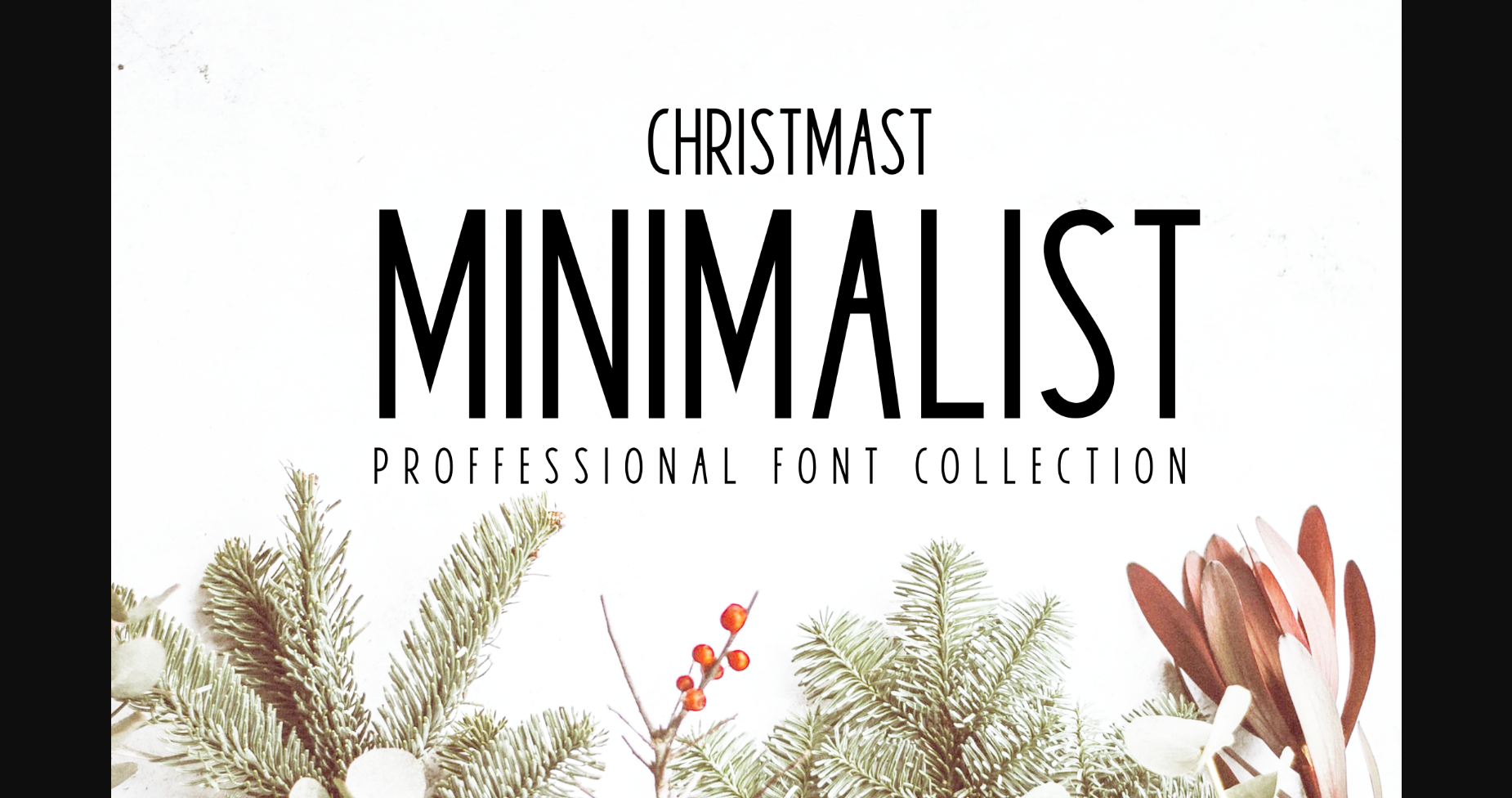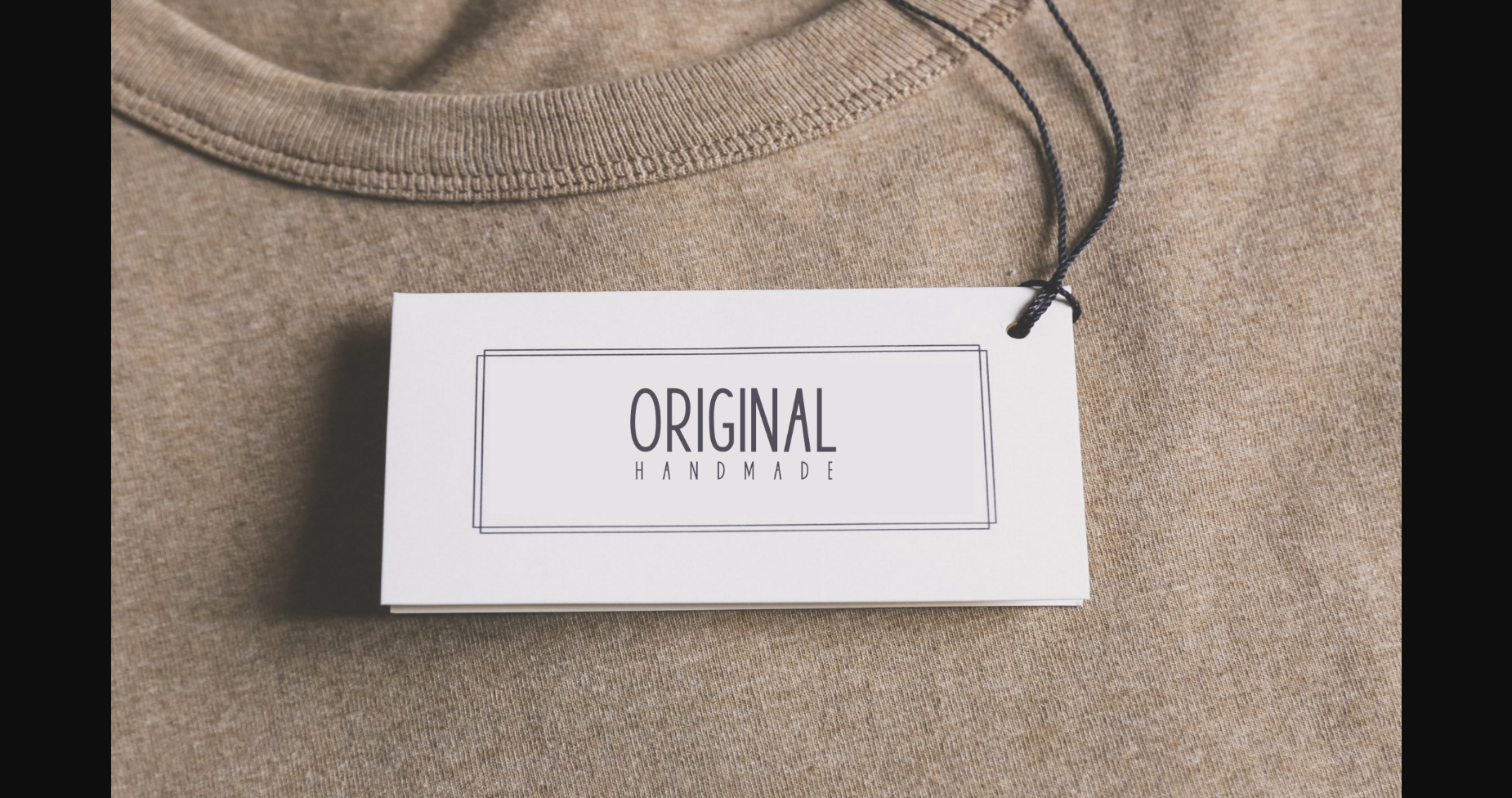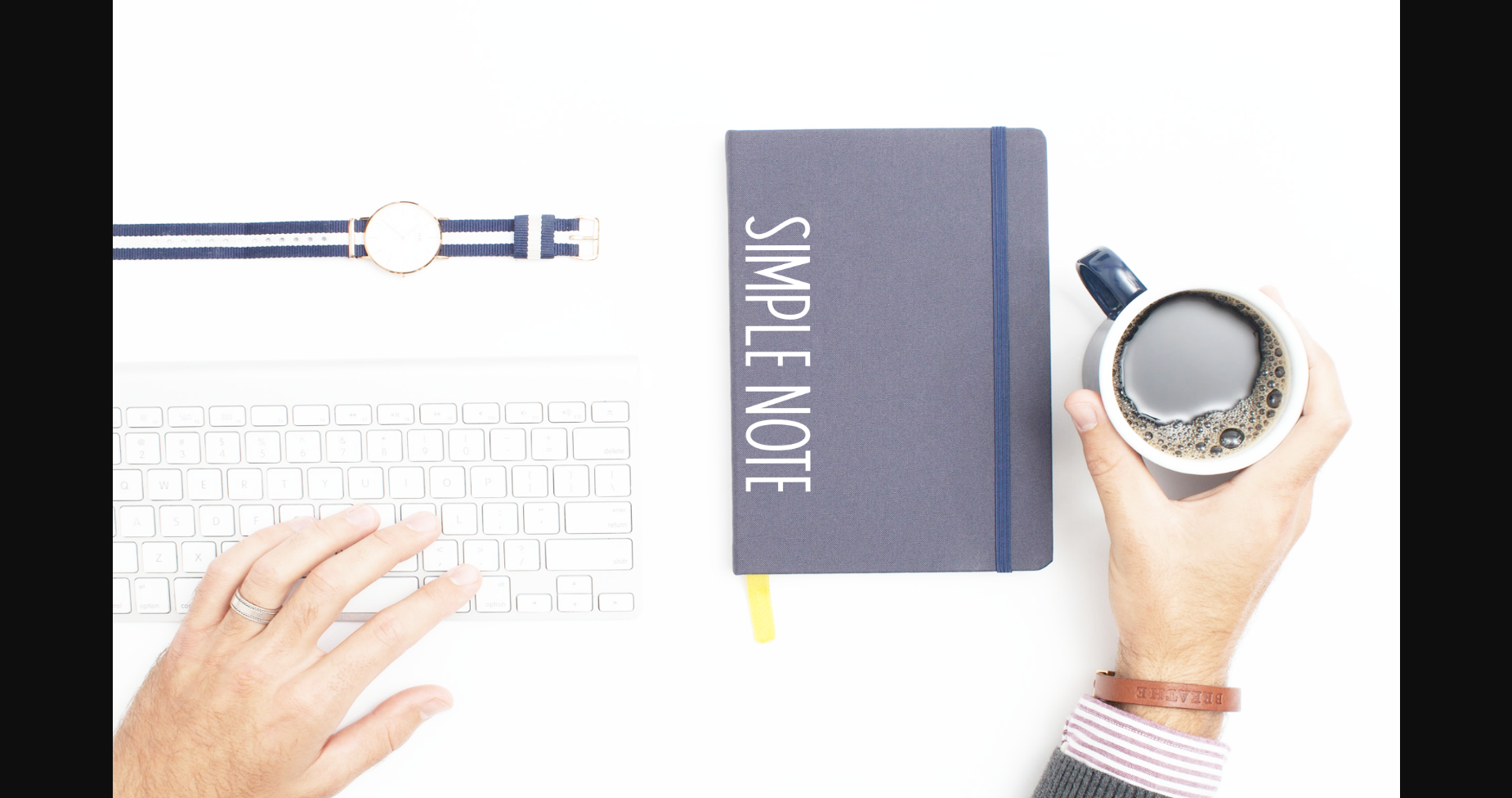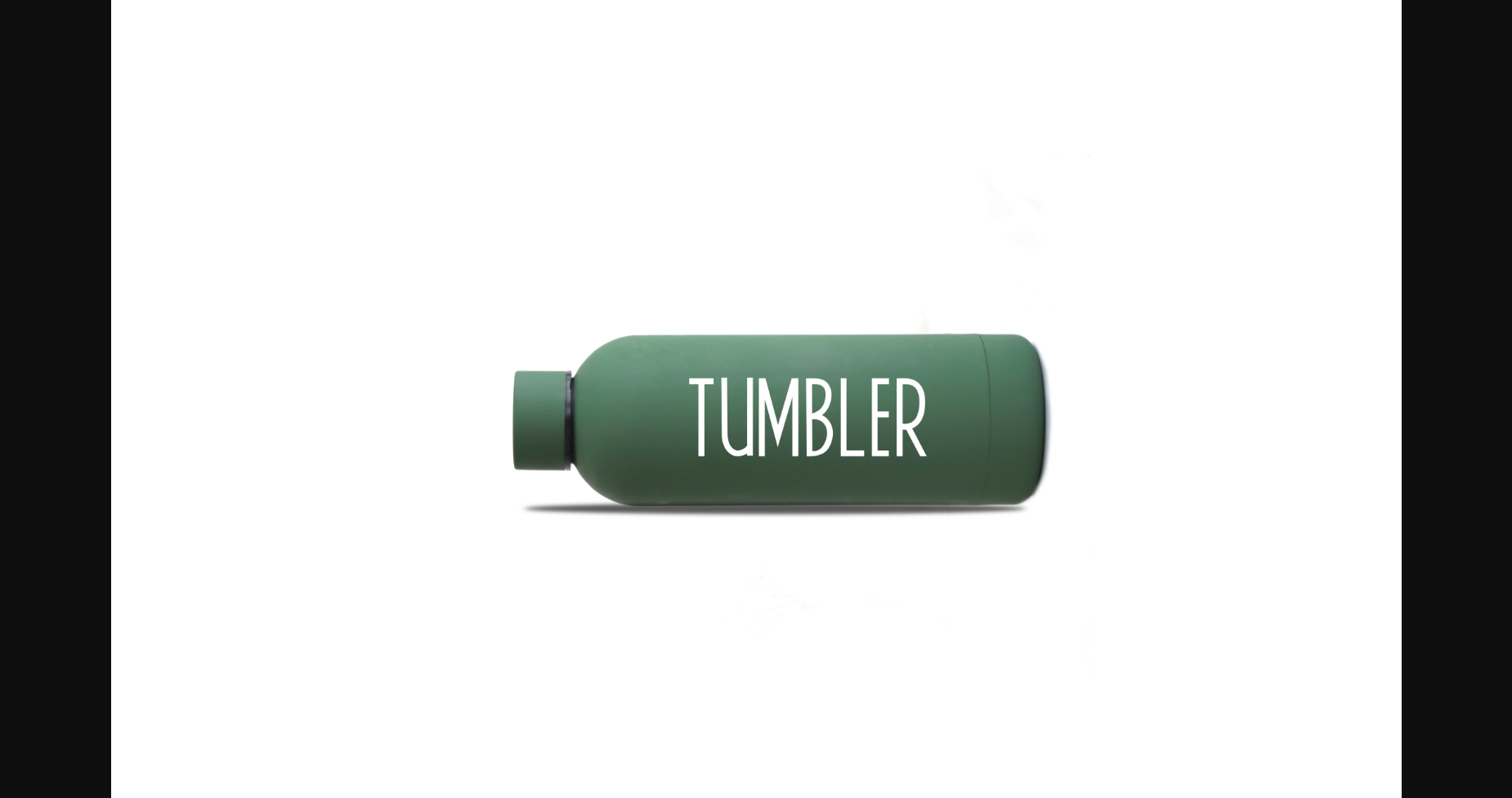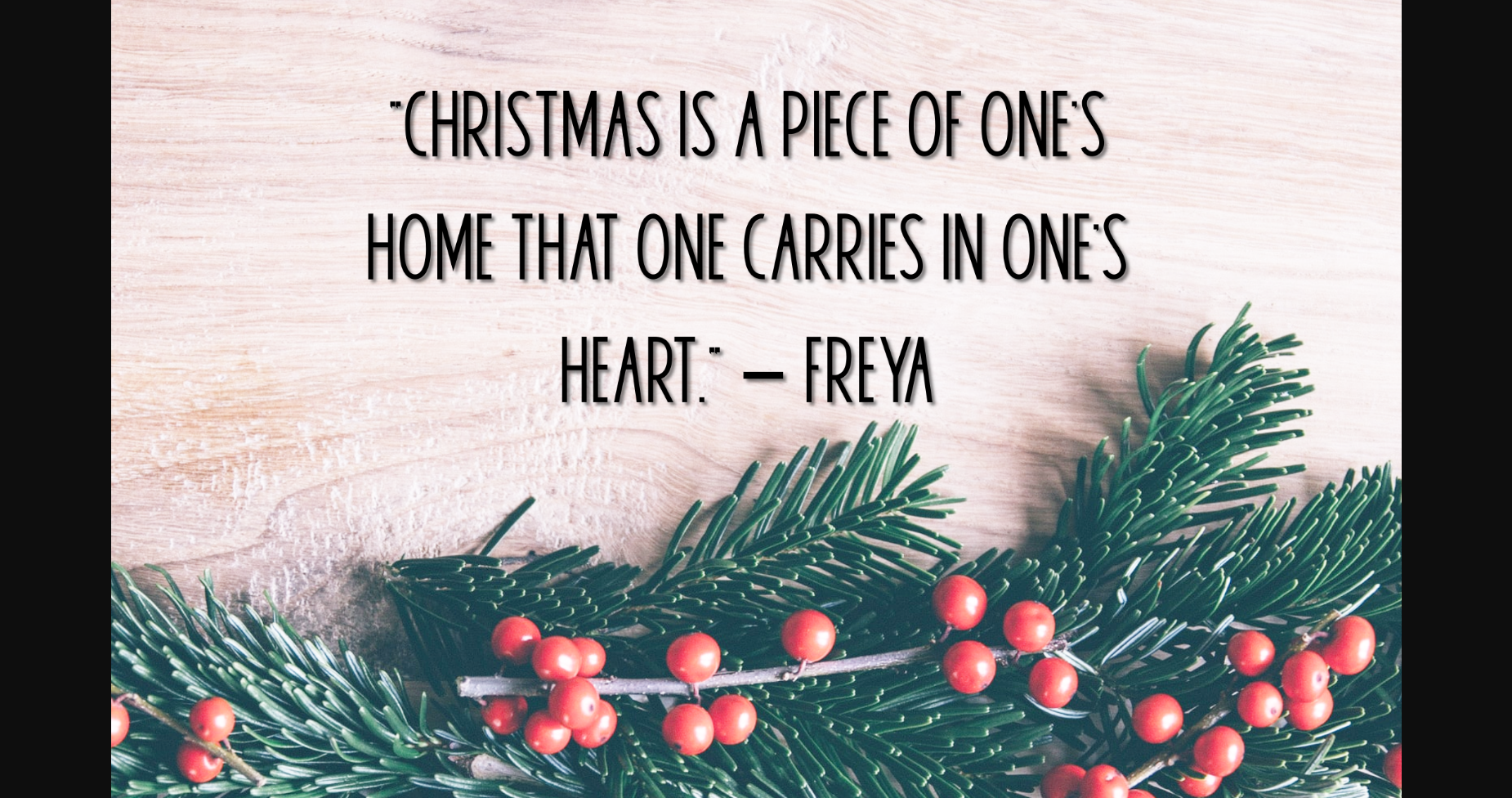
HomeSans Serif FontsChristmas MInimalist Font Sans Serif Fonts Christmas MInimalist Font FacebookXPinterestWhatsApp 1 of 7 ... Christmas MInimalist Font Poster 2... Christmas MInimalist Font Poster 3... Christmas MInimalist Font Poster 4... Christmas MInimalist Font Poster 5... Christmas MInimalist Font Poster 6... Christmas MInimalist Font Poster 7... About Christmas MInimalist Font Christmas MInimalist is a thin and tall sans serif font. It can easily be matched to an incredibly large set of projects, so add it to your creative ideas and notice how it makes them stand out! DOWNLOAD NOW People also explored Clarsly Extra Light Font Hardball Font Rosebean Font Enttergal Font Saturday Font Simple Home Font Jessy Calling Font Ronita Donut Font 274 0 TagsChristmas MInimalistChristmas Minimalist Font Previous articleSK Seren FontNext articleVenarotta Font LEAVE A REPLY Cancel reply Comment: Please enter your comment! Name:* Please enter your name here Email:* You have entered an incorrect email address! Please enter your email address here Website: Save my name, email, and website in this browser for the next time I comment. Personal Use Free Autines Personal Use Free Read more about this font Clarisa Script Personal Use Free Read more about this font Oito Personal Use Free Read more about this font Glosery Personal Use Free Read more about this font BLOG Fonts That Capture the Spirit of New York City New York City is more than just a place—it’s an experience, a rhythm, a visual language... Top 7 Google Fonts Alternatives for Faster and Privacy-Friendly Web Design (2025) The 10 Best Handwriting Fonts to Add Personality to Your Designs Elegant Wedding Invitation Fonts – Handwritten & Script Fonts